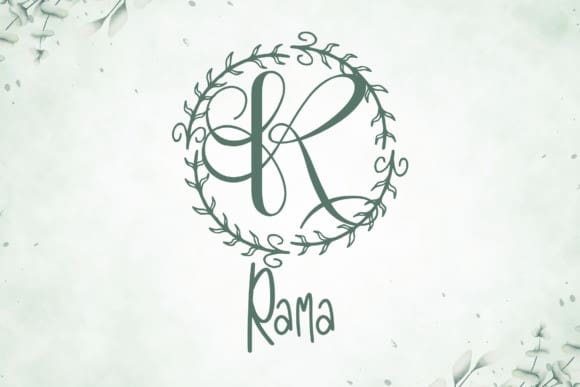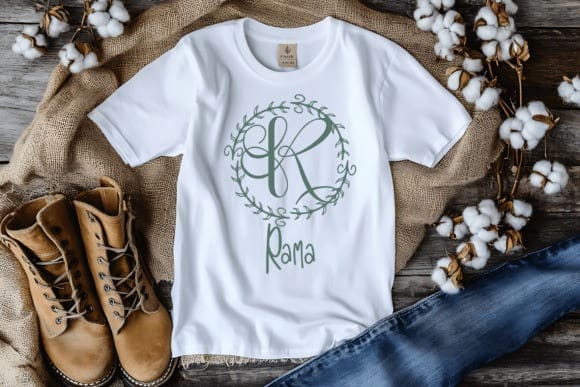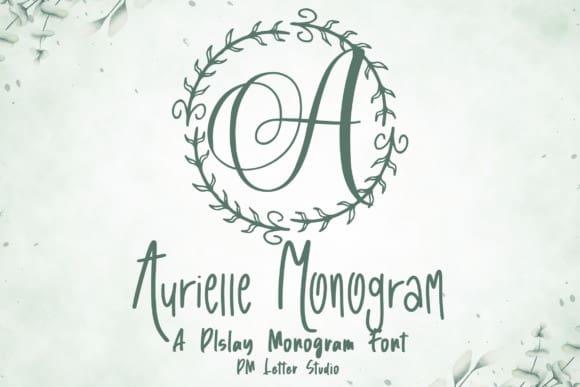
Aurielle Monogram Font
Aurielle Monogram Font is an elegant serif monogram font that blends refined letterforms with subtle botanical flair. Designed with a graceful balance of structure and softness, this font is ideal for high-end branding, wedding invitations, product packaging, and personalized monogram projects. With clean lines and delicate curves, Aurielle delivers sophistication with a modern floral touch—making it perfect for boutique logos, stationery suites, and gift customization.
At its core, Aurielle Monogram celebrates ornamental simplicity. Each uppercase character is thoughtfully shaped with timeless serif details, enhanced by fine botanical accents woven into the form. Whether you’re designing a wedding crest, custom gift tags, candle labels, or foil-stamped prints, this font elevates your work with a graceful and intentional presence.
Aurielle is perfect for creators who need both beauty and legibility. Its classic serif structure ensures professional readability, while its decorative touches bring a warm, handcrafted personality. It’s particularly suited for elegant monogram design, upscale brand identities, event decor signage, or even personalized SVG crafts. With its high versatility and distinct character, Aurielle bridges the traditional and the contemporary with ease.